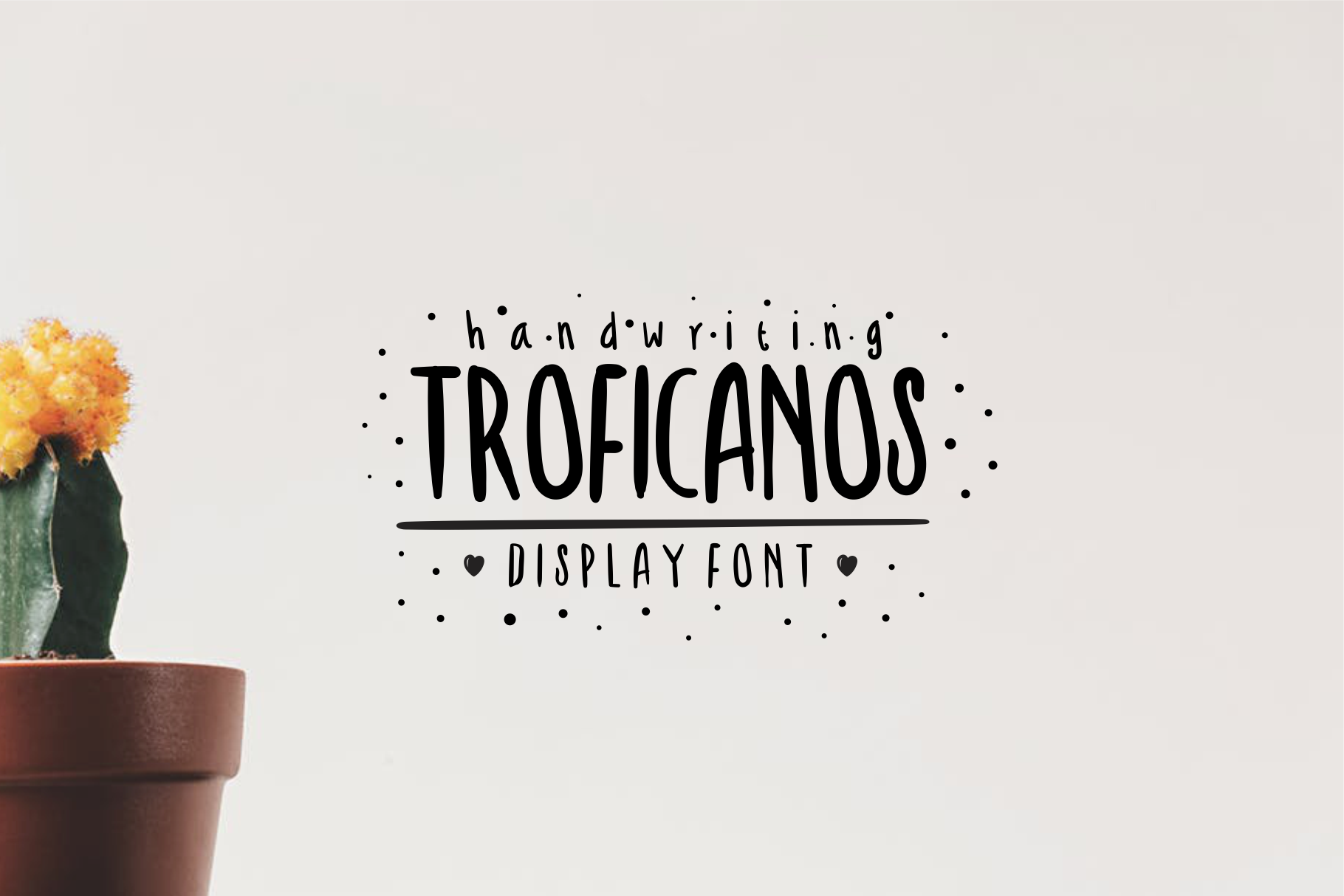
Troficanos Handwriting Display Font
Troficanos is a handwritten font that has a beautiful character, children, good-hearted, perfect for wedding invitations, parties, websites, ads, product labels, or anything that needs a soft and funny touch like the Troficanos font.
Standard Glyphs
- Standard English character,
- Number, &
- Punctuation.